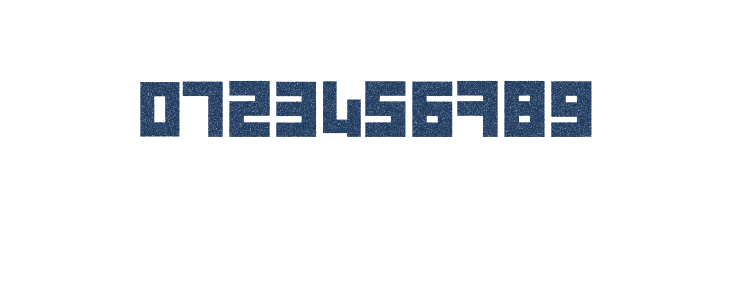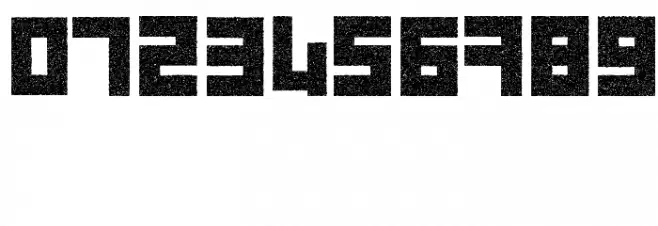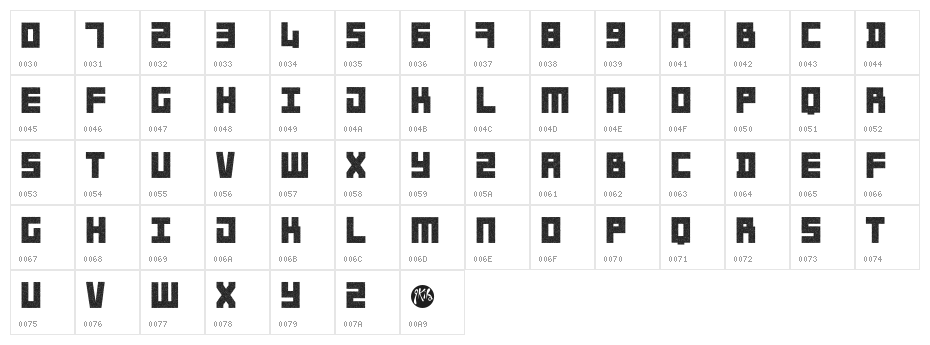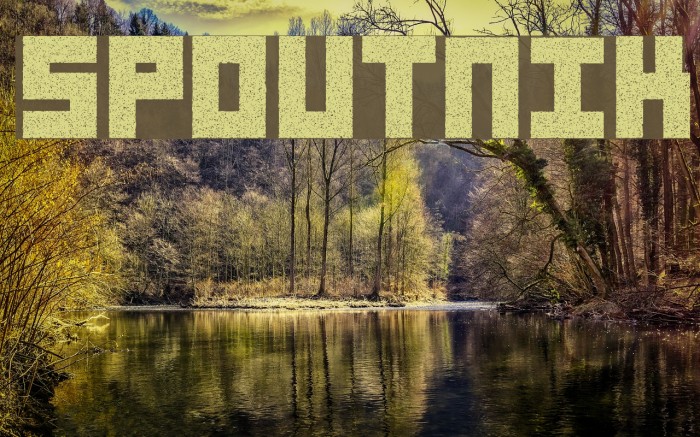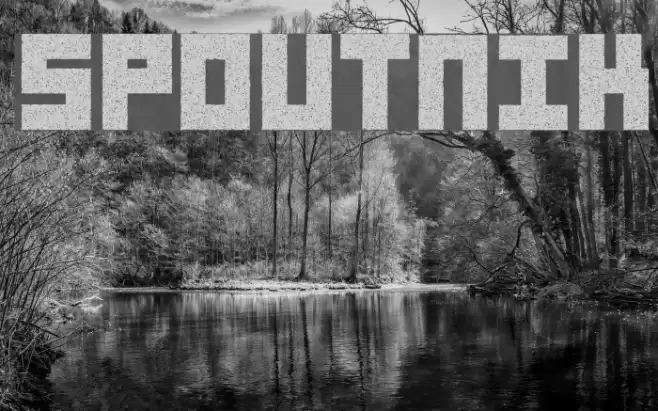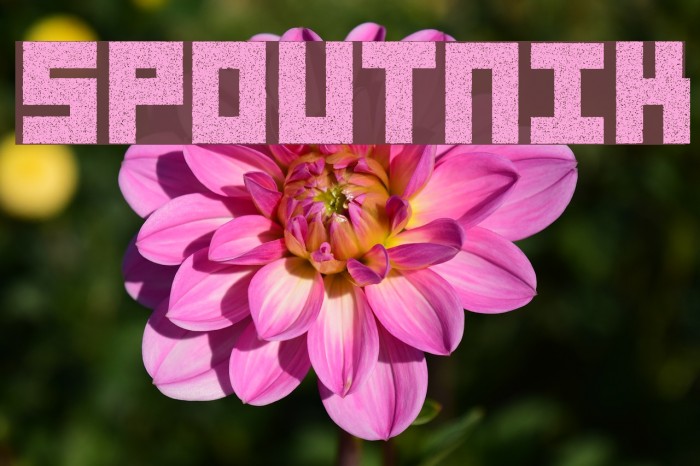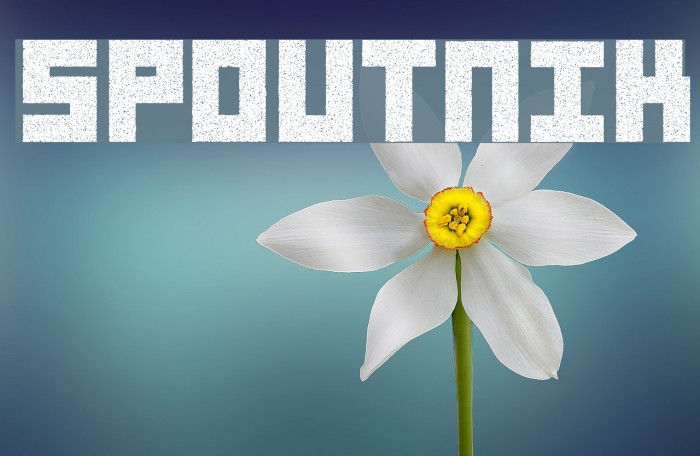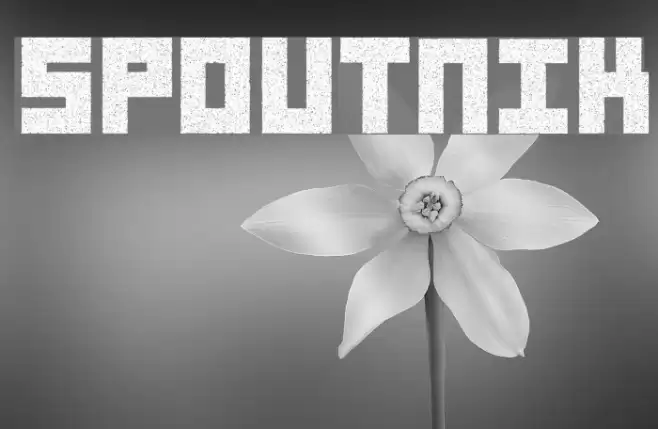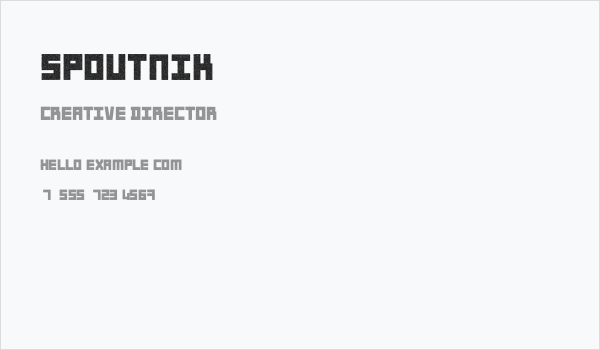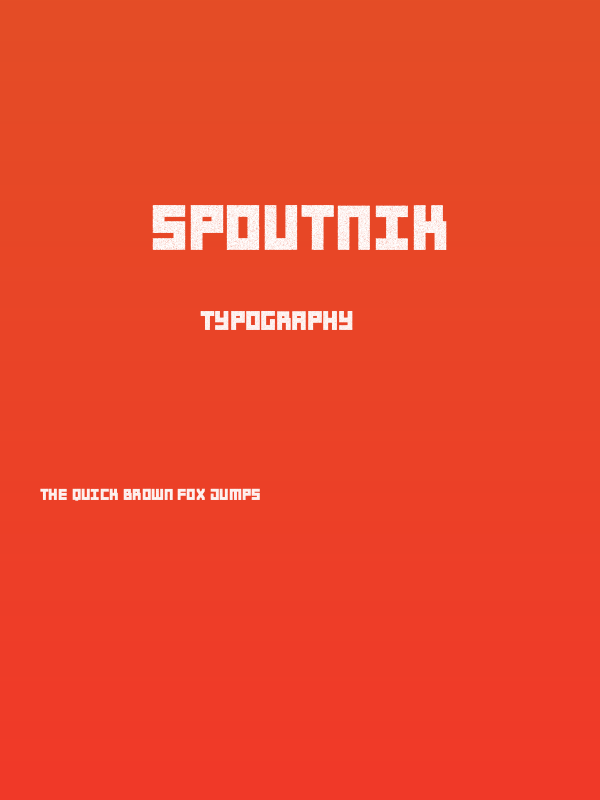
Spoutnik Font
Spoutnik Description
This font features a bold, geometric design with a distinctly futuristic and industrial feel. The characters are constructed with thick, block-like shapes, giving them a strong and commanding presence. The angular edges and uniform stroke width contribute to a sense of precision and modernity. The uppercase letters are particularly striking, with a uniform height and width that create a cohesive and balanced appearance. The numbers and special characters maintain the same bold and structured aesthetic, ensuring consistency across all glyphs. This font is ideal for projects that require a bold statement and a modern, tech-inspired look.
| Proposed Projects | Ideal for technology branding, sci-fi themed designs, video game interfaces, and modern posters. |